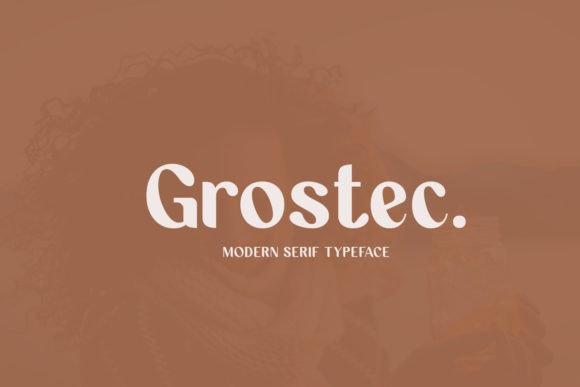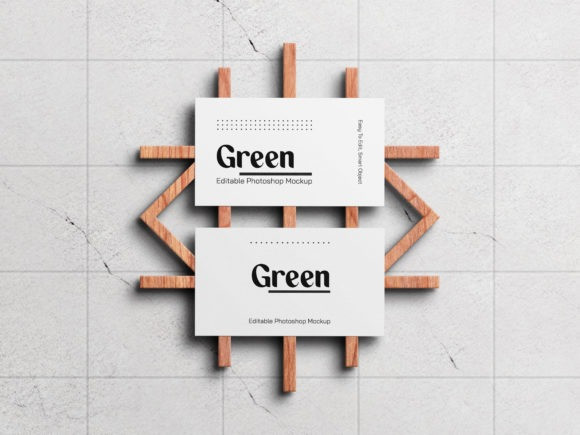
Grostec Font
Grostec is a fun and cool display font. This font is ideal for writing web designs, business cards, or pretty much anything else that requires a unique touch.